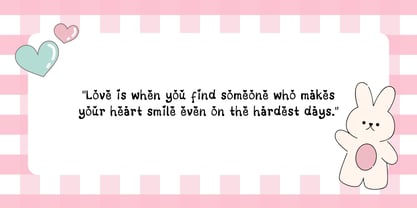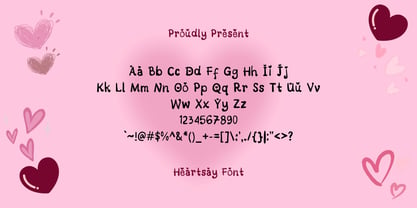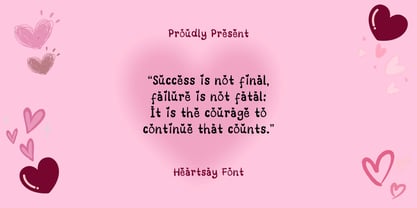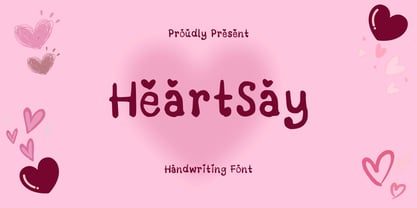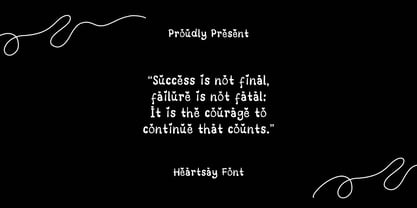
Heartsay
by Sidkia Fonts
Heartsay Font is a playful and lovely handwritten typeface that radiates warmth and charm. With soft curves and heartwarming vibes, it's perfect for romantic designs, cute stationery, social media posts, and anything that needs a little touch of love. This font feels like a handwritten note from someone special—fun, personal, and full of affection.